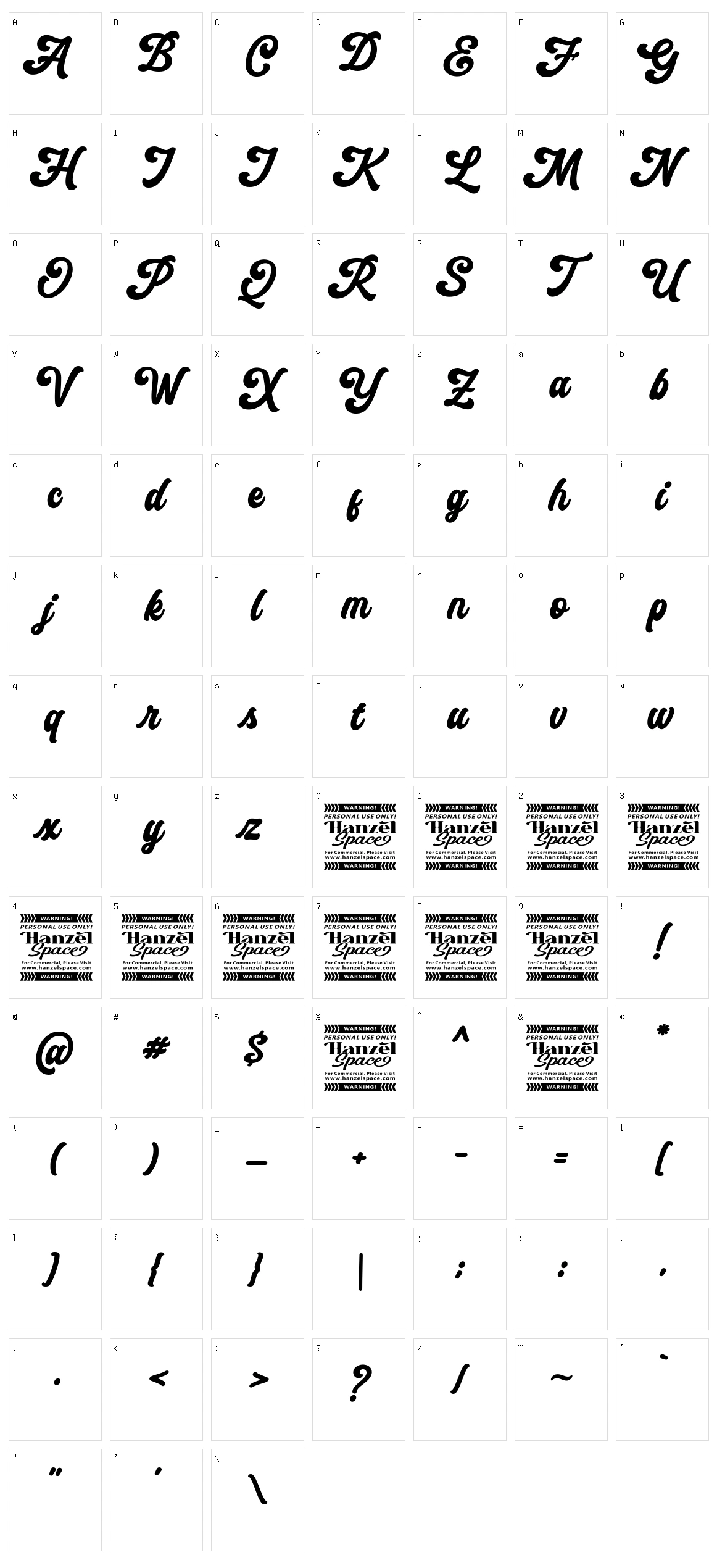
The free font Blantik is carefully designed by Hanzel Space, showcasing a thoughtful balance of creativity and usability and falls under the Old-School font style. When you download the ZIP file, it contains only 1325.44 KB of font files, making it lightweight and quick to download. Please review the license details below to understand permitted usage and distribution rights. If license information is not available, we recommend using this font for personal projects only or contacting the author directly for commercial usage permissions.